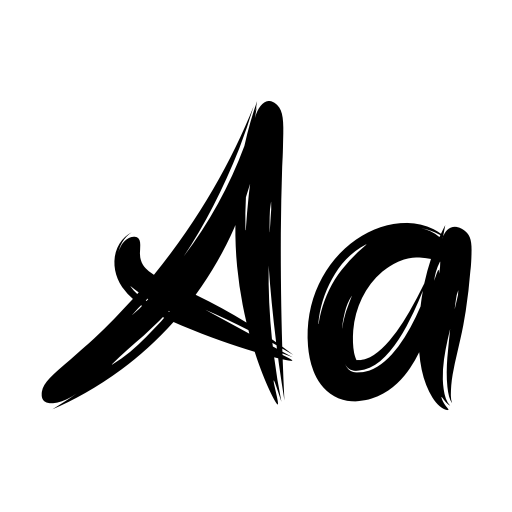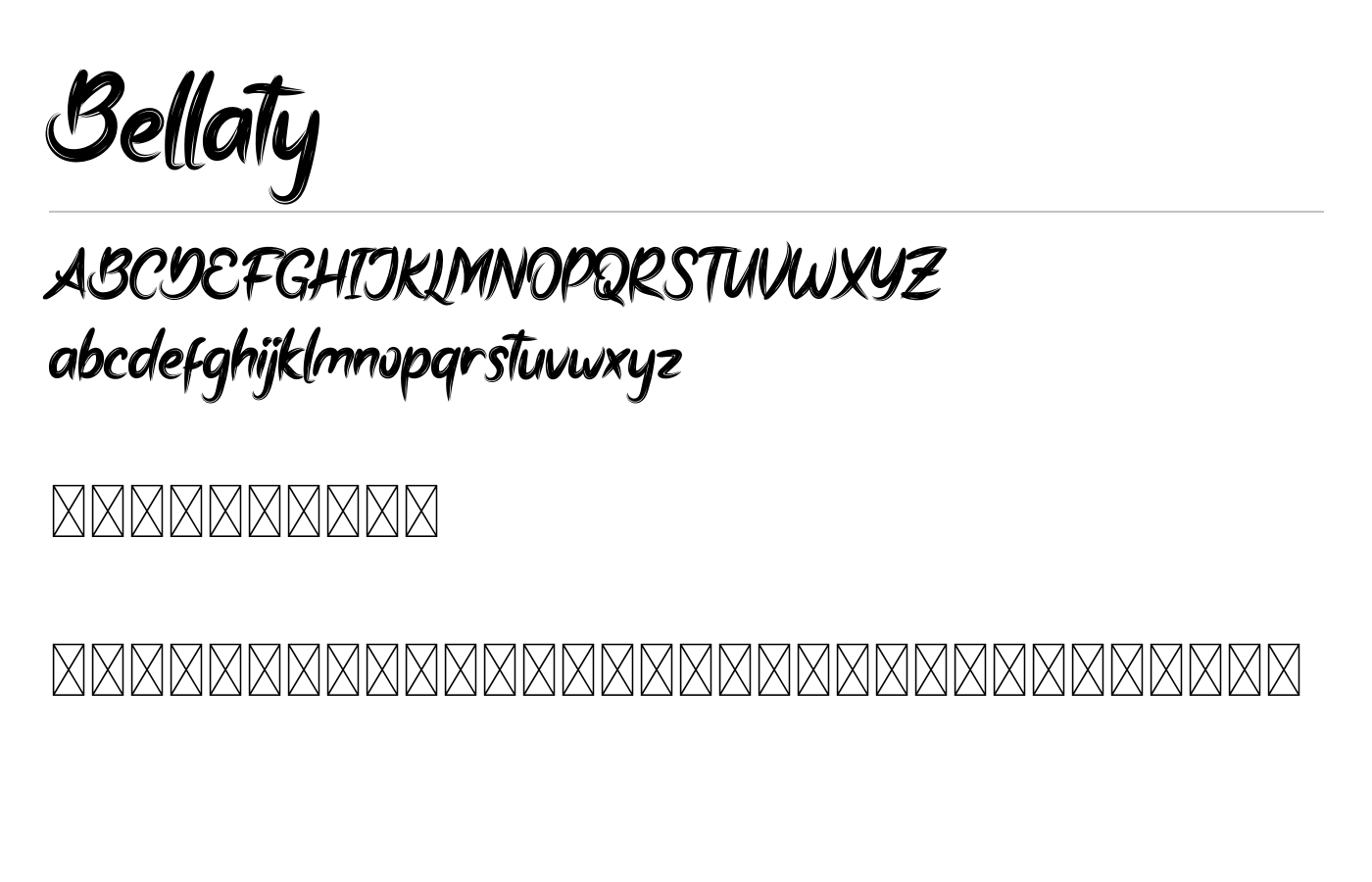
Bellaty is a stylish script font with bold, brush-like strokes that give it an energetic and handcrafted feel. Its dynamic letterforms and playful curves make it perfect for creative branding, eye-catching headlines, and designs that want to evoke a lively, personal touch. This font works well in fashion, packaging, and modern editorial projects where a youthful and expressive vibe is desired.
Bellaty Font